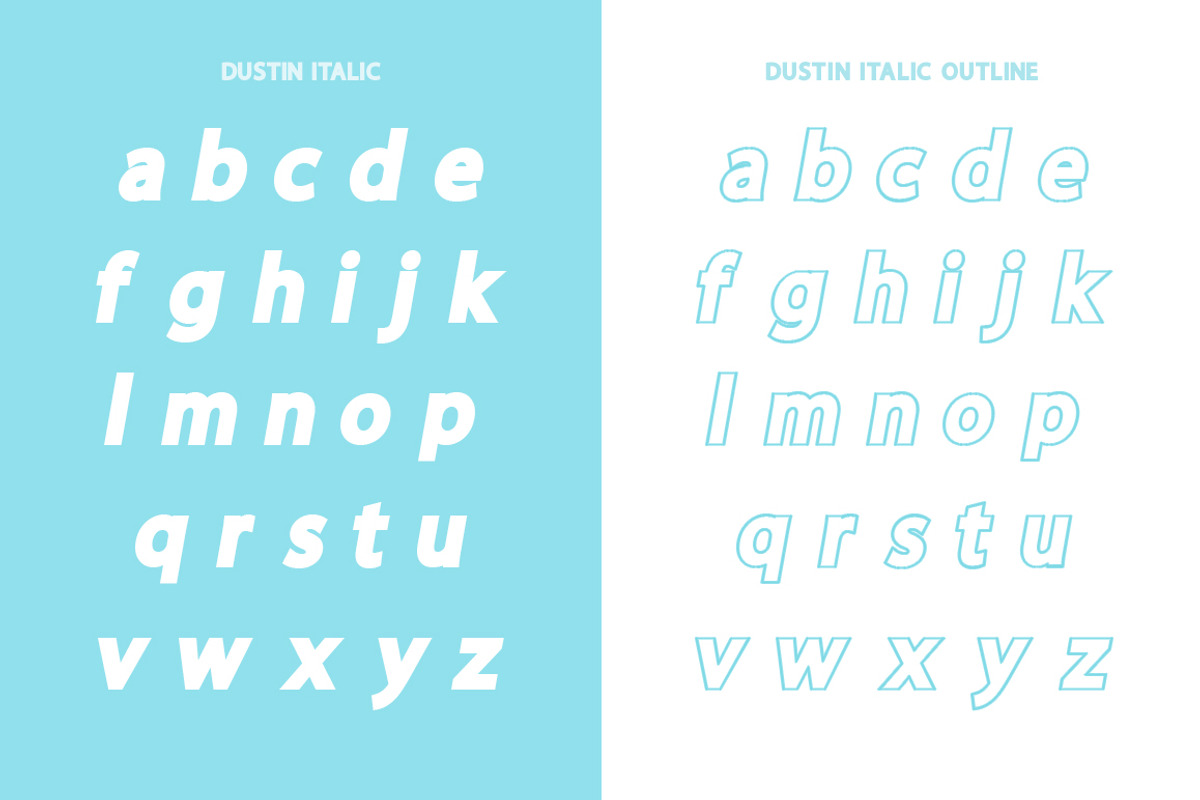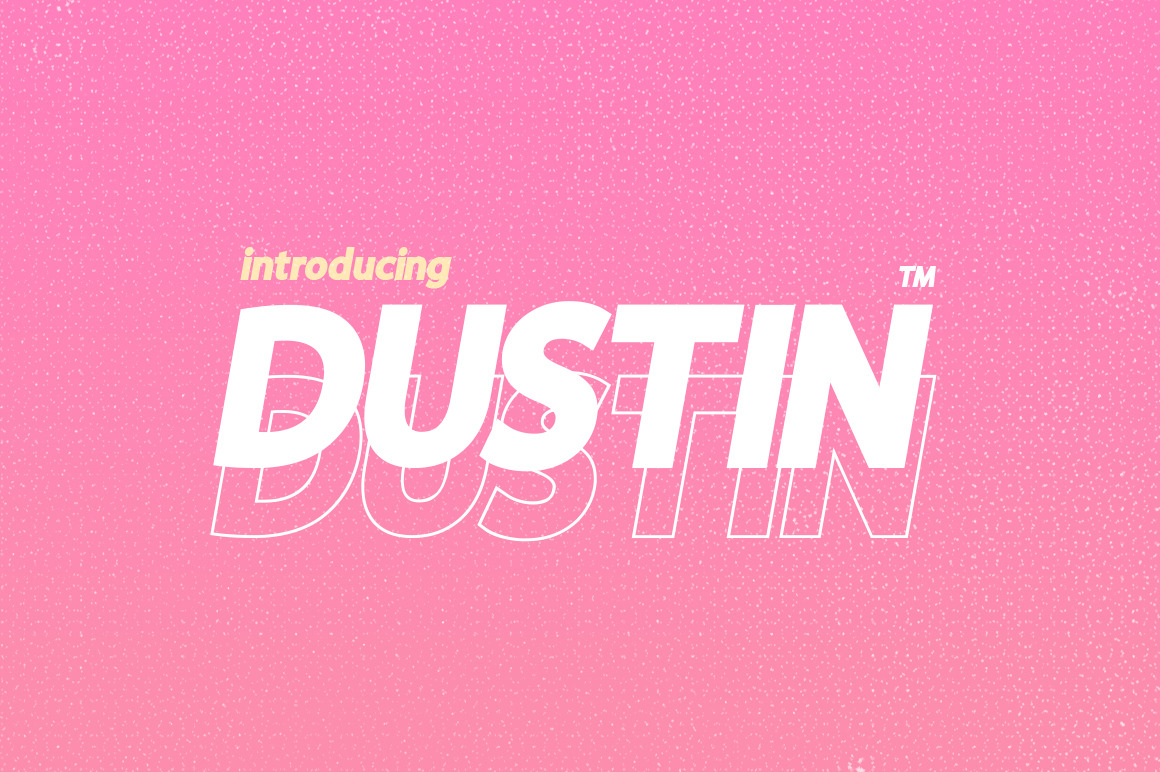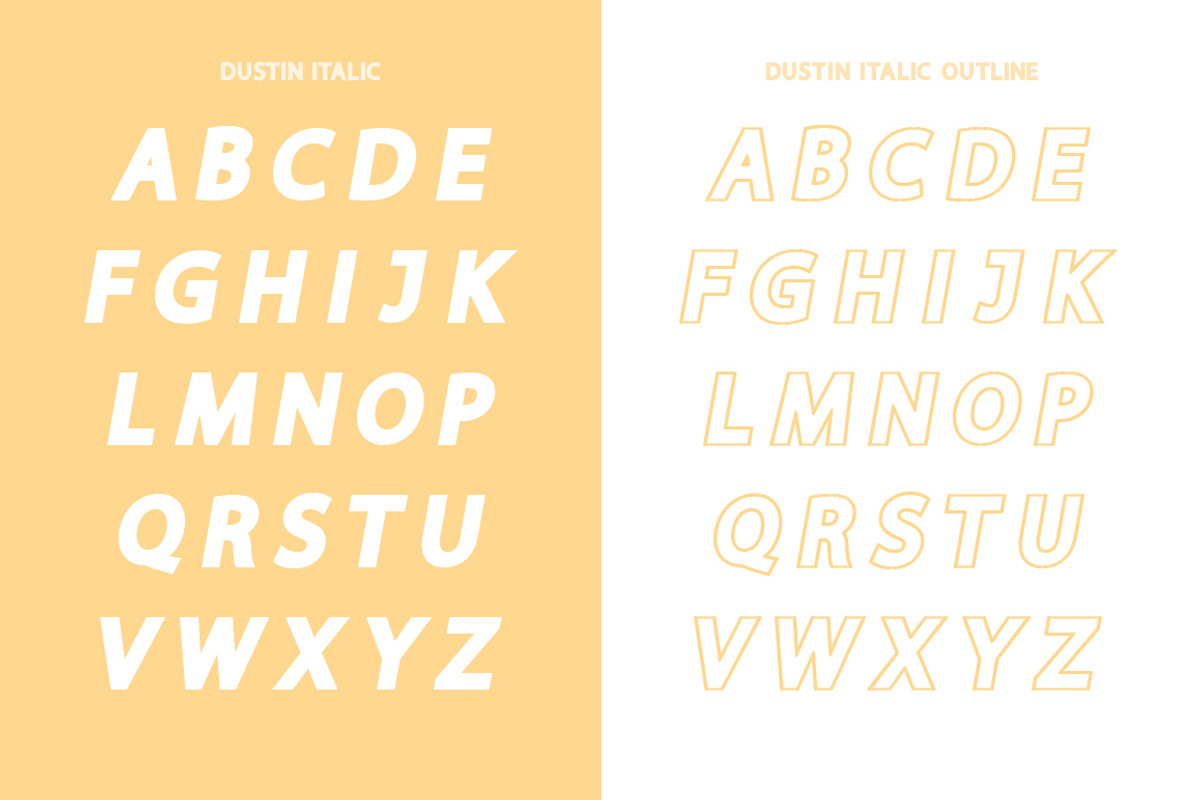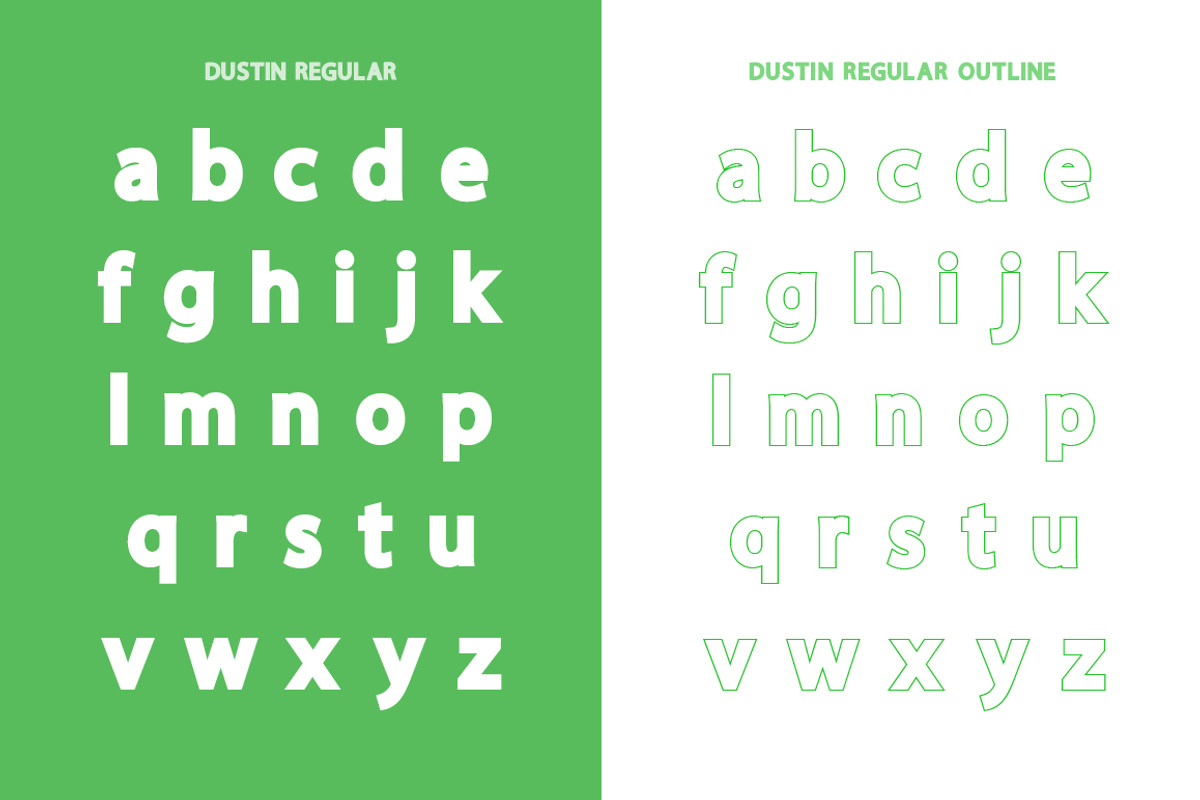
Dustin Sans Font Family
Introducing the brand new Dustin Font Quartet. This beautiful and professional typeface family includes 4 alternate fonts. Dustin Regular and Dustin Italic, which are both included in regular filled and outline versions. Combine each font together to create stunning designs.